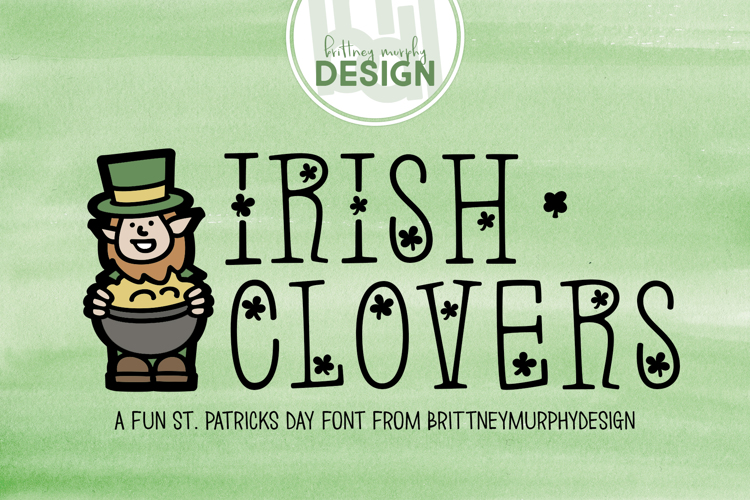
Irish ^ Clovers Font
About Irish ^ Clovers Font
A fun, St. Patricks Day font! Use the circumflex ^ for the leprechaun, use the asterisk * for the big clover, and use the bullet • for the small clover.